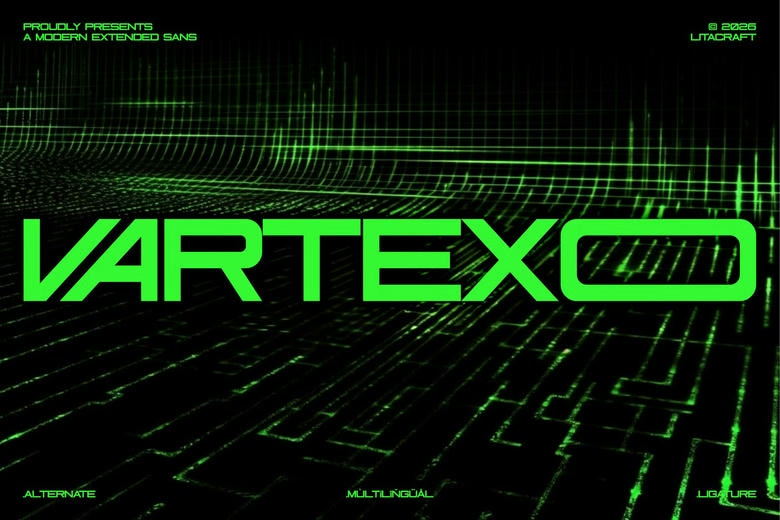
Vartexo Font
Vartexo is a high-contrast display typeface of the future, created to be used in the digital branding of the future. The product of a collision between cyberpunk style and industrial accuracy, Vartexo offers a clean, high-profile appearance that is immediately commanding.
Vartexo offers the right balance between readability and aggressive futuristic style whether you are creating a high-octane racing game, a slick tech interface, or movie titles. Its heavy boldness and distinctive glyph designs are perfect in headlines that must be hard-wired into the system.
Vartexo Display Font